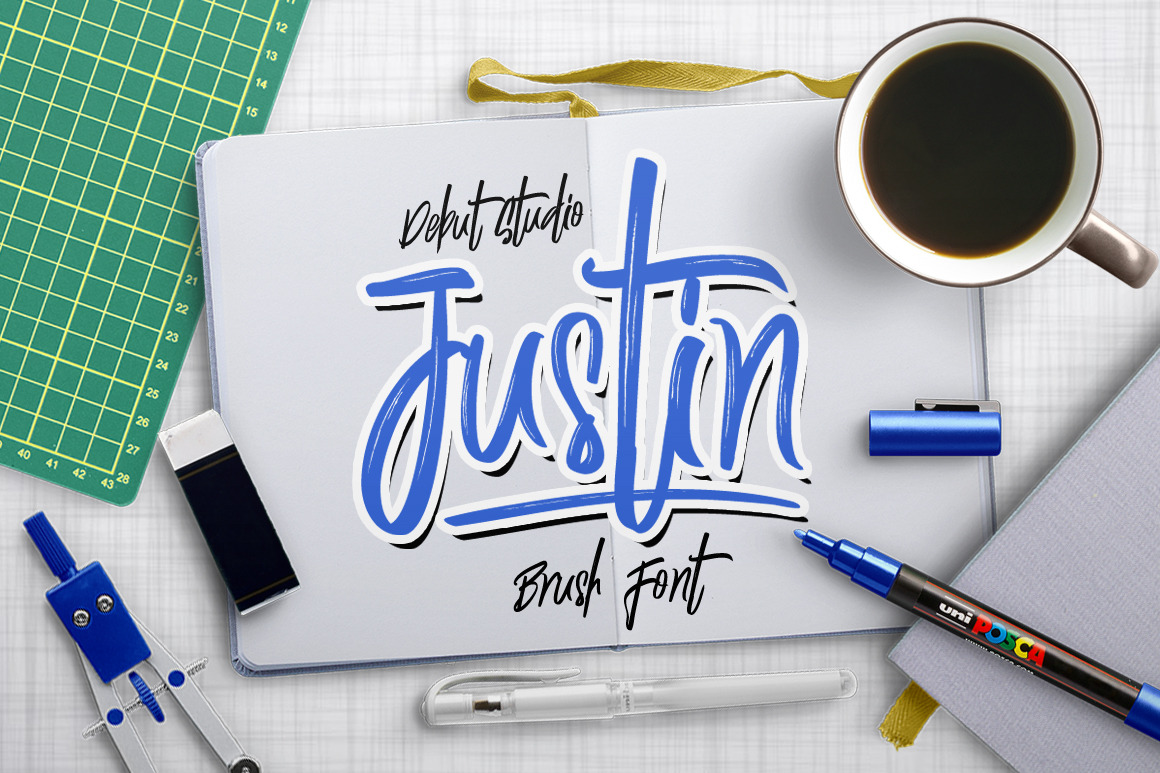
Justin Brush Font
Introducing my new Calligraphy, Justin Brush Font This font is my own handmade, I made it using a brush pen, so the fibers of the writing look more beautiful. this handwriting I make into a font for those of you who like free style in designing. It is suitable for those of you who like free style fonts for design purposes such as T-shirts, branding, lettering, brochures, and other design purposes.
- Regular & Italic
- Standard Ligature